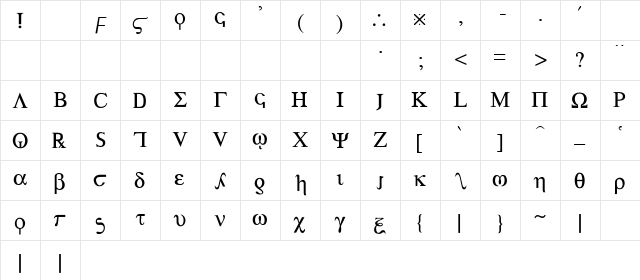
Greek Regular
Design Context for Greek Typeface
Greek offers clean, dependable letterforms without strong stylistic allegiance, making it a practical choice for designers who need flexibility.